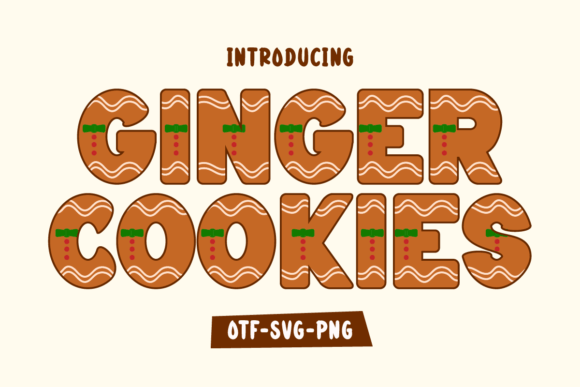
Ginger Cookies, Whimsical Christmas Script Font
Ginger Cookies is a decorative font with a playful, “cookie‑and‑holidays” style — whimsical, fun, and instantly nostalgic. The font blends a festive vibe with friendly letterforms, making it perfect for greeting cards, holiday packaging, cozy‑themed merchandise, or any design that calls for warm, cheerful typography. Whether you are working on digital graphics, print designs, or craft projects, Ginger Cookies brings a sweet, festive look to your text.
- Designers and illustrators creating holiday cards, packaging, festive posters, or cozy‑themed branding
Ginger Cookies gives your designs a warm, festive character — perfect for holiday‑themed merch, greeting cards, and cozy seasonal designs. Its decorative, playful feel makes even simple text feel cheerful and handcrafted, adding a personal touch to your projects. Because it includes a basic font version compatible with cutting machines, plus a color version for more advanced design software, it offers flexibility — whether you’re doing vinyl crafts or digital artwork. As part of the free‑font offerings, it’s a cost‑effective way for small businesses, indie sellers, and hobbyists to access fun, eye‑catching typography without extra licensing cost. :contentReference[oaicite:5]{index=5}
| Style / Vibe | Festive, playful, cookie‑themed, holiday‑friendly | Minimal, neutral, modern | Decorative / stylized but generic) |